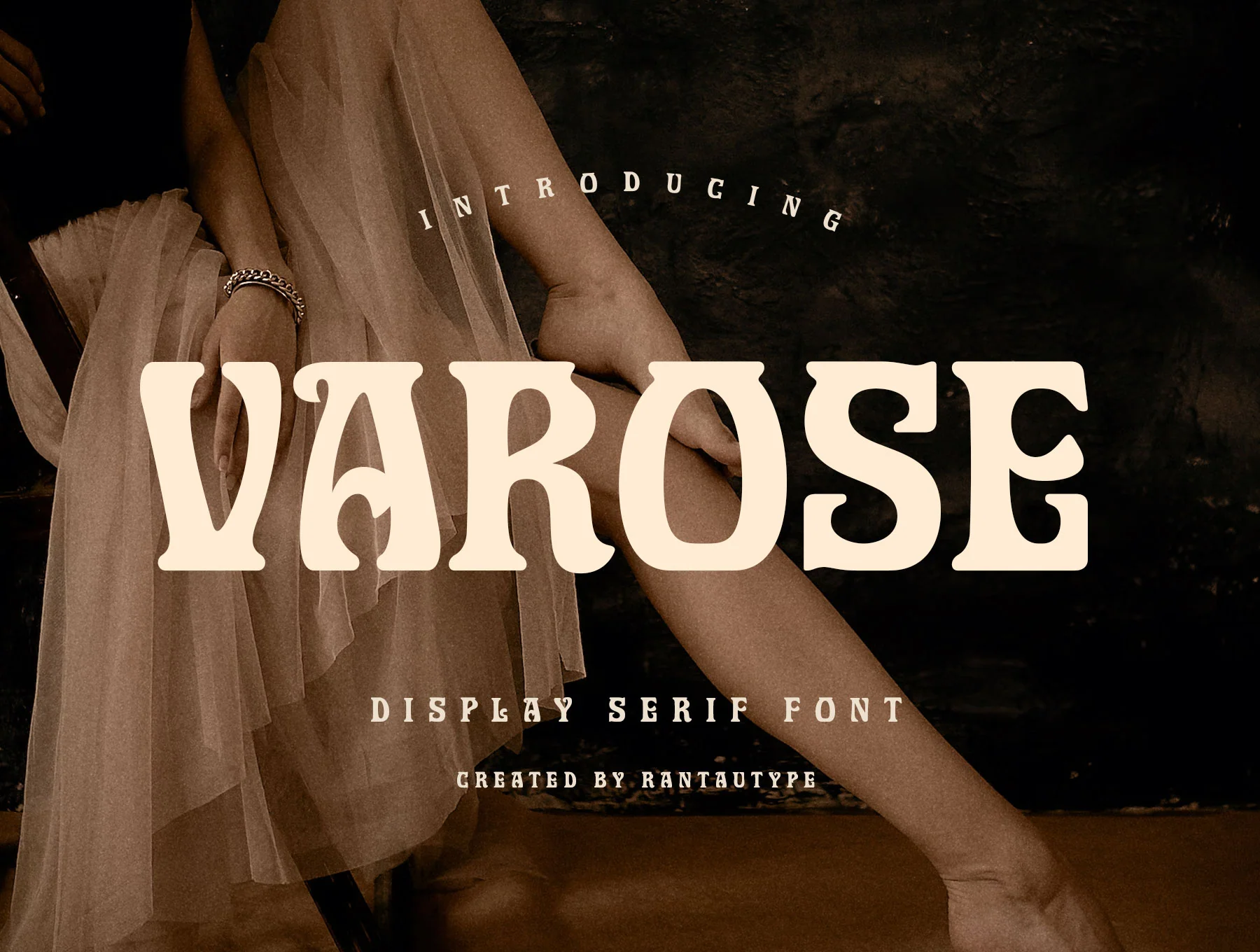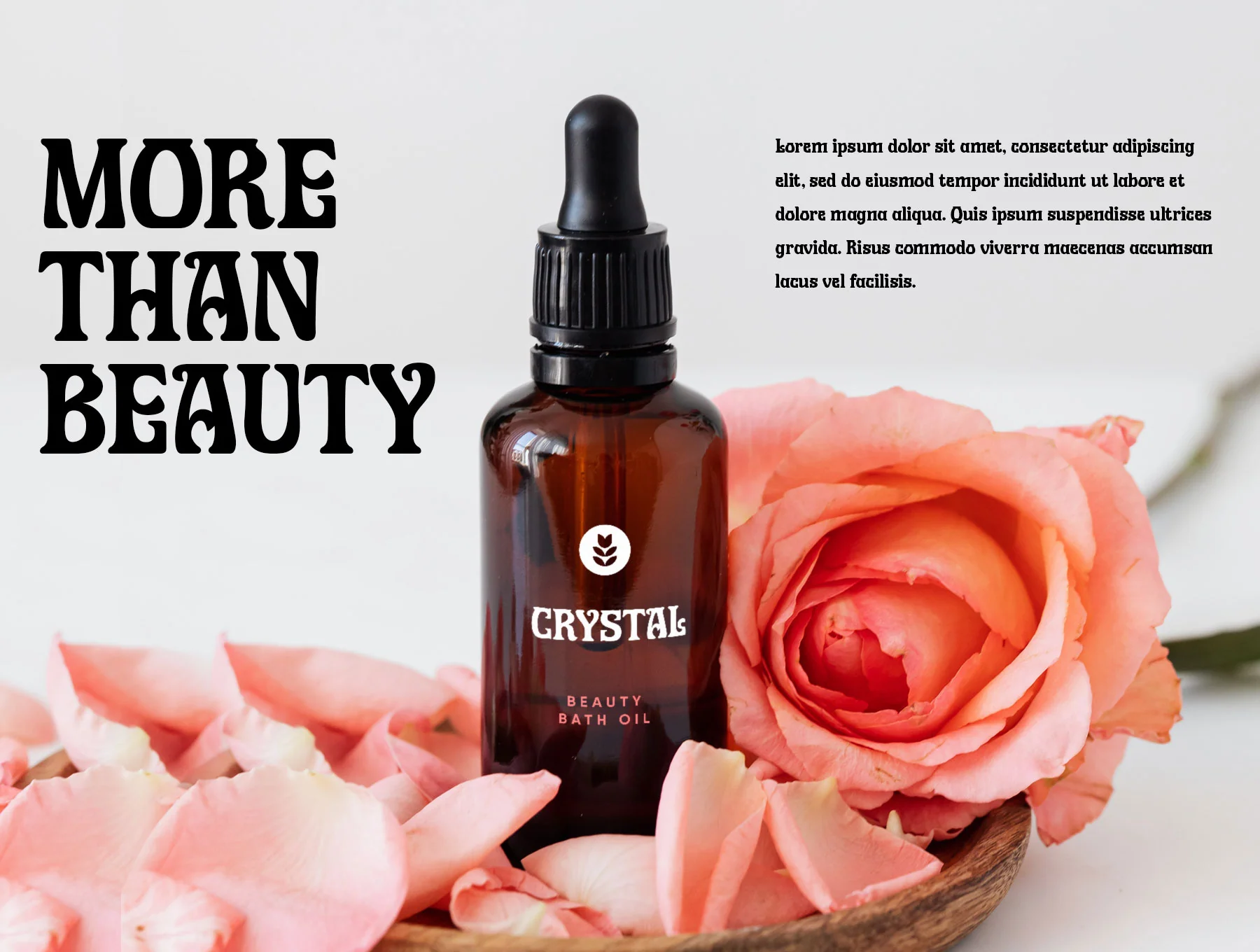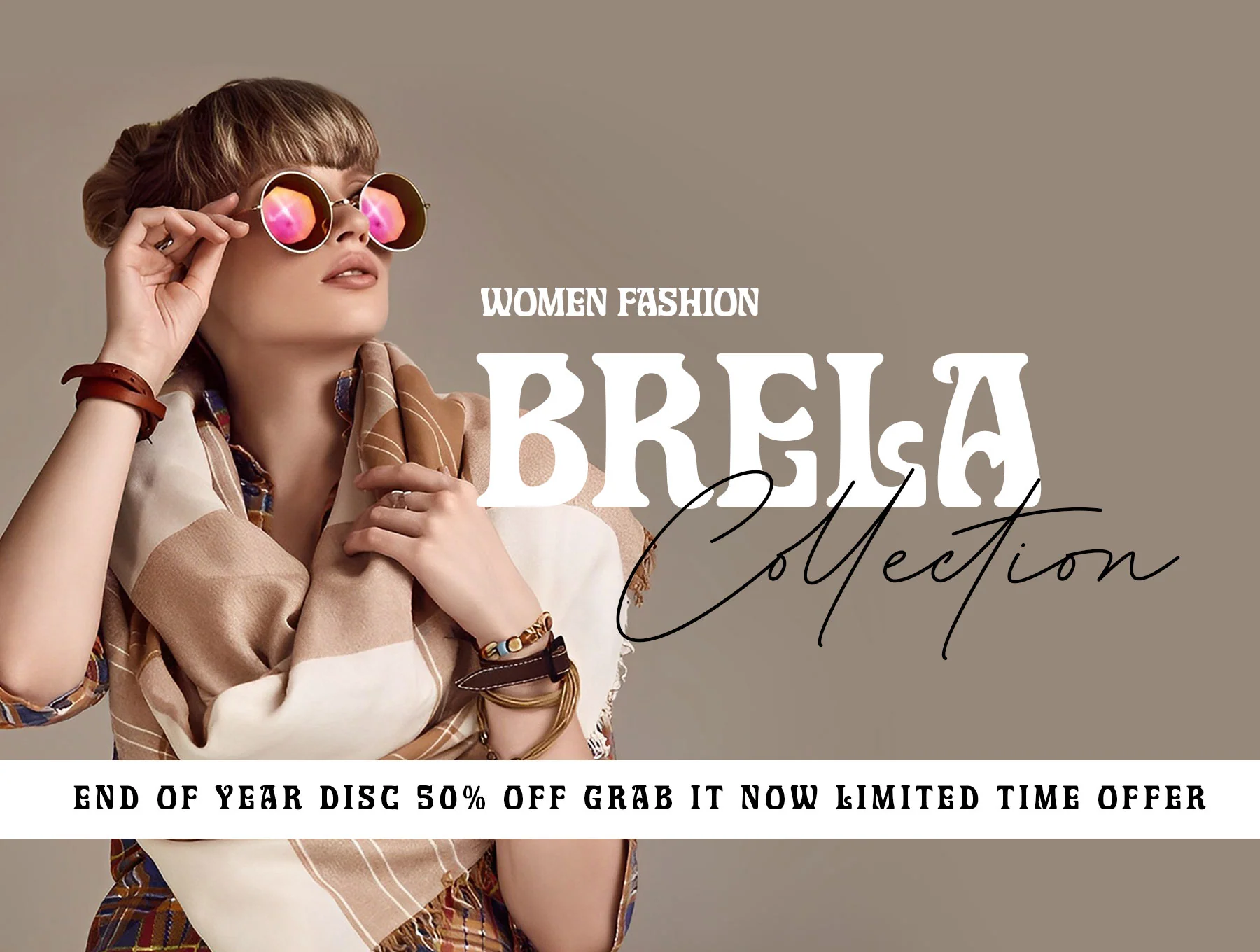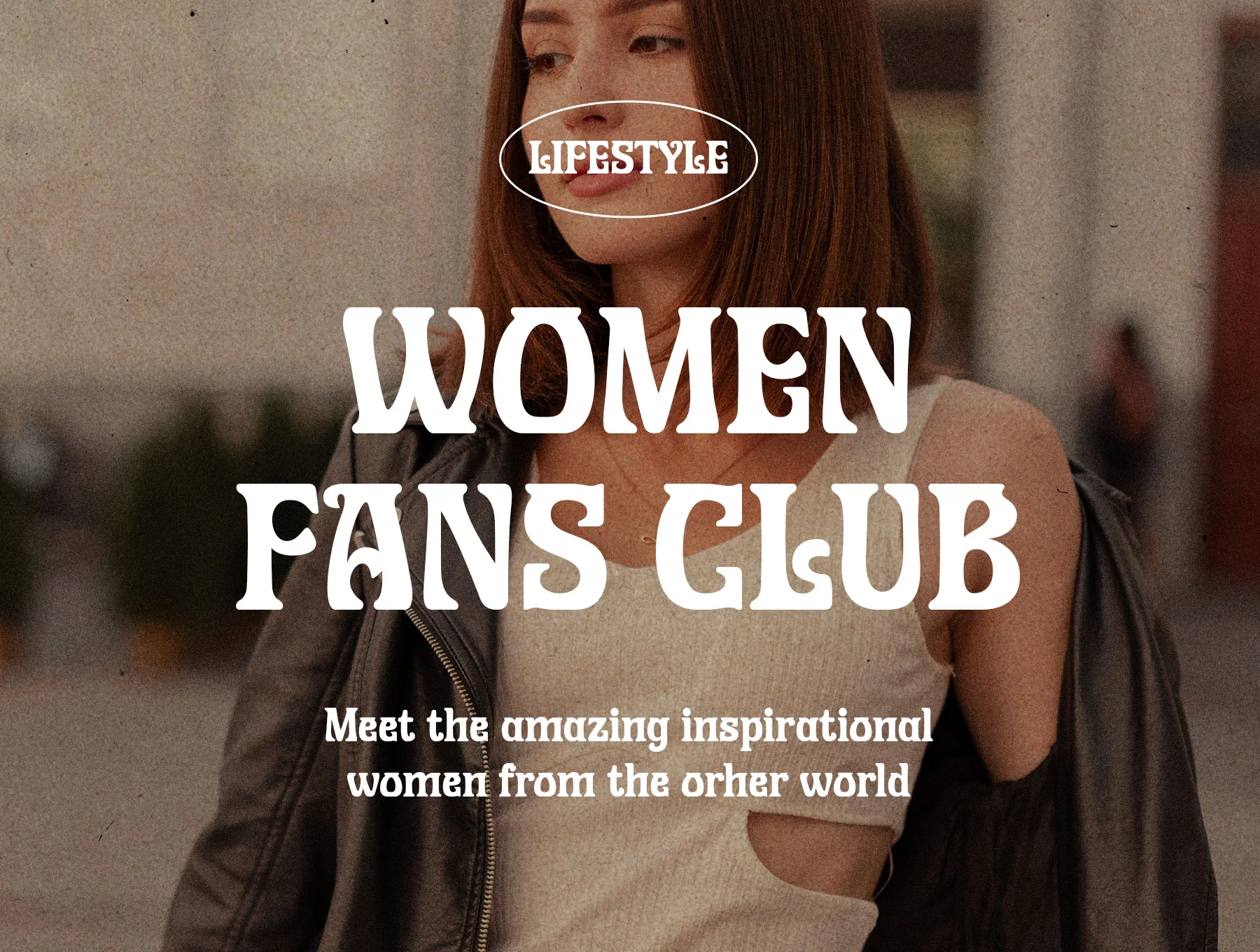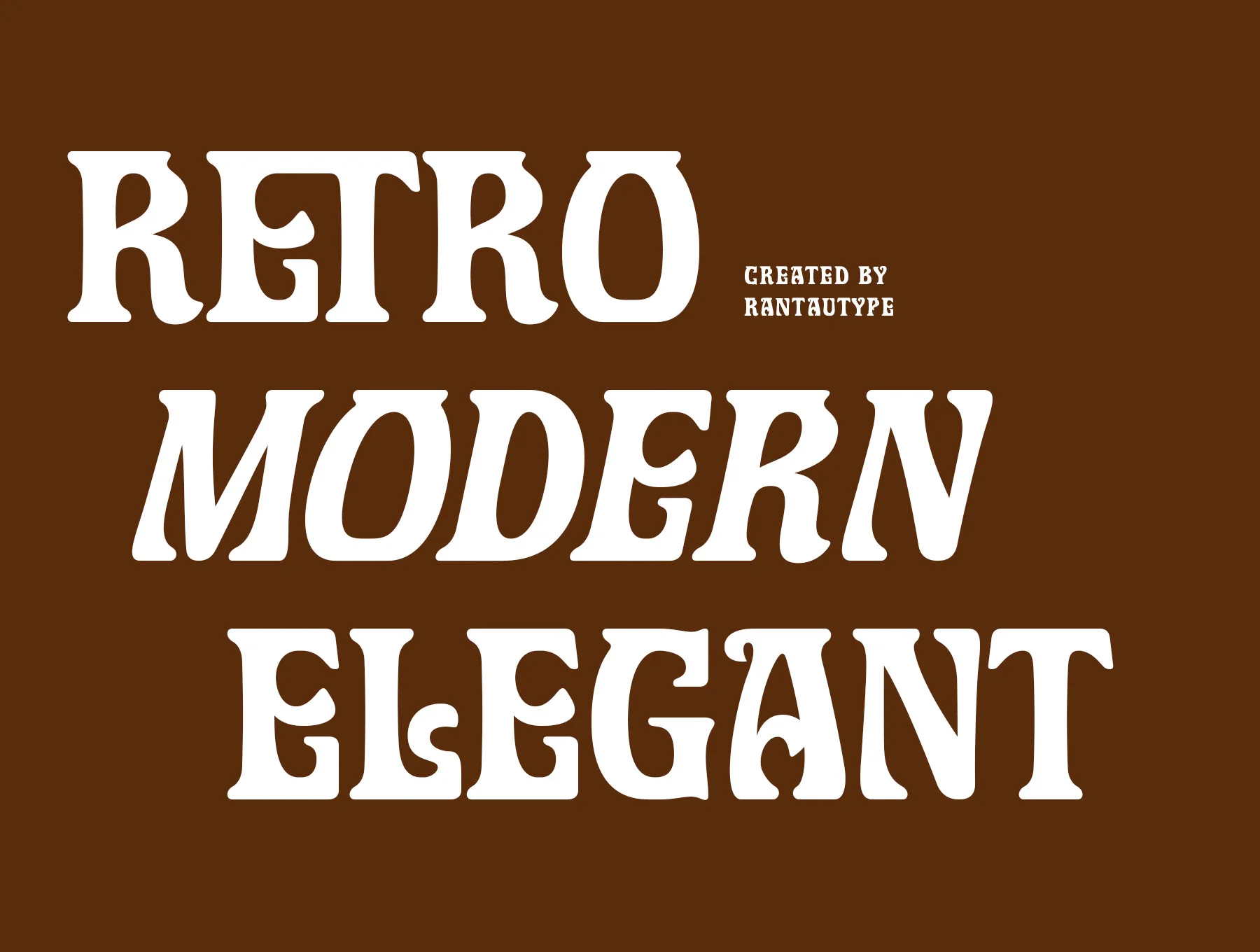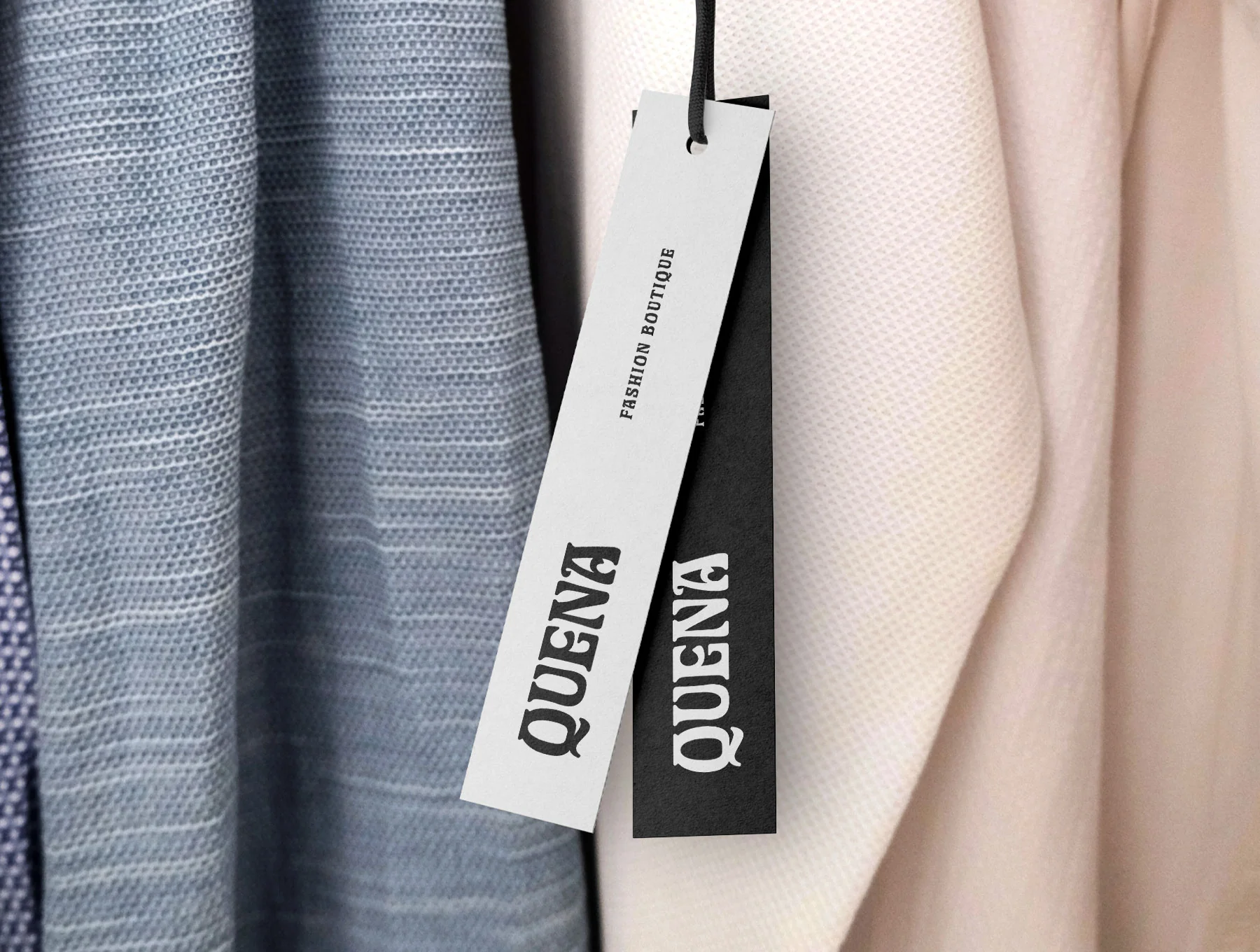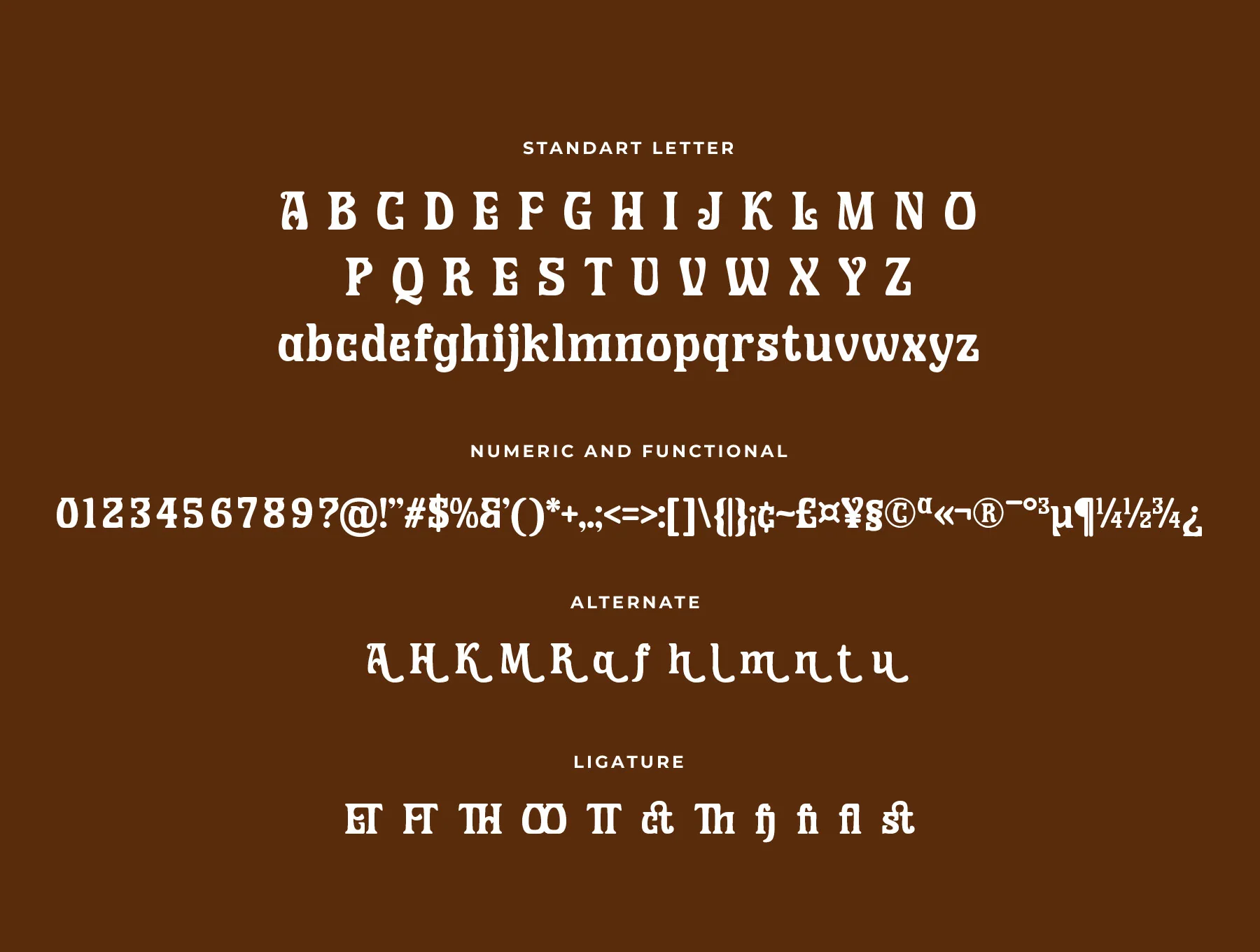
Varose Elegant Serif Font
Refined Serif Typeface
Standard uppercase and lowercase letters A–Z and a–z
Alternates and ligatures
Varose by Rantautype is a graceful display serif with classic 19th-century flair, soft curves, and polished details. Ideal for logos, branding, editorials, covers, weddings, quotes, cards, magazines, and lifestyle projects. Includes regular/italic in OTF, TTF, WOFF, with A–Z, a–z, numbers, alternates, ligatures, multilingual support, and OpenType features.